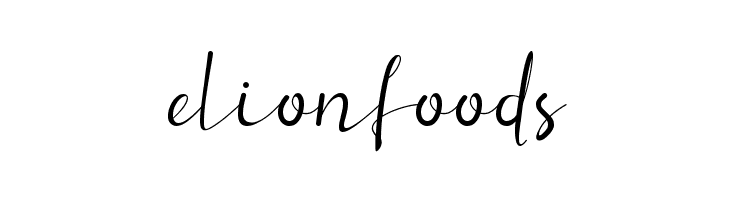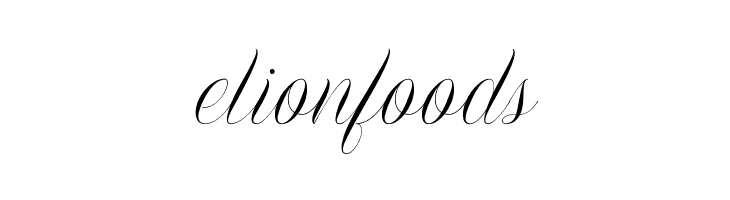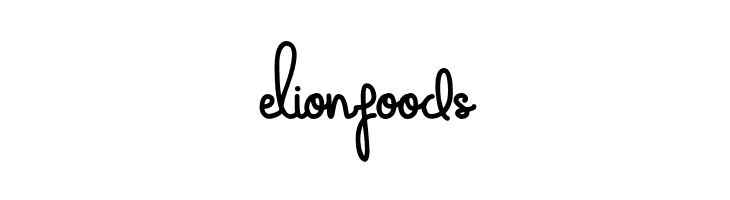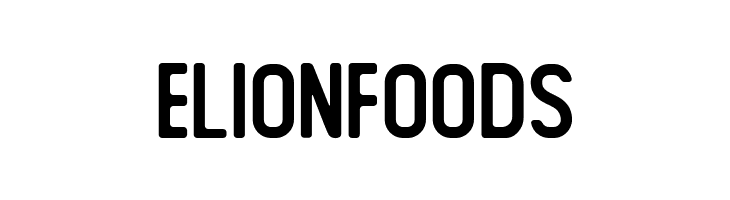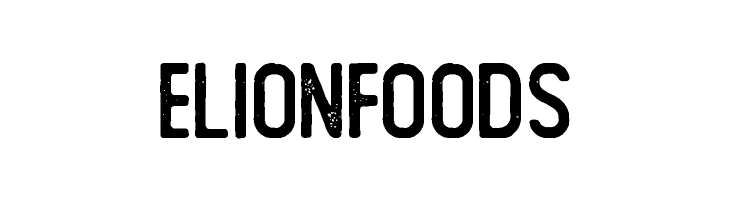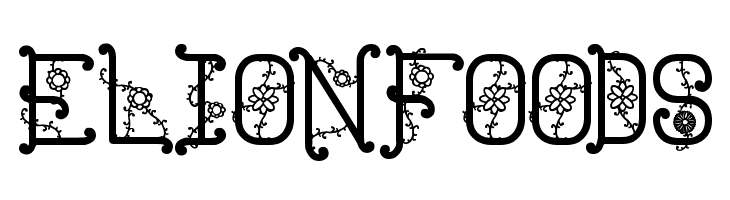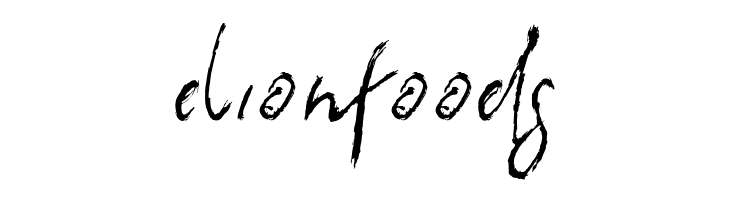
A dynamic, brush-style handwritten font with an energetic and raw appearance.
A charming, fluid handwritten font with bold, confident strokes and a slight slant.
An elegant script font with flowing, interconnected letters and classic calligraphic style.
A decorative font with floral embellishments on bold, rounded characters.
A playful, cursive-style font with interconnected, flowing letters.
A whimsical script font with looping, interconnected letters and decorative swirls.
A flowing, cursive font with elegant, interconnected characters.
A bold, rounded sans-serif font with a modern and approachable style.
A rugged, distressed font with a vintage, hand-crafted appearance.
A playful, hand-drawn font with tall, narrow letters and a whimsical style.